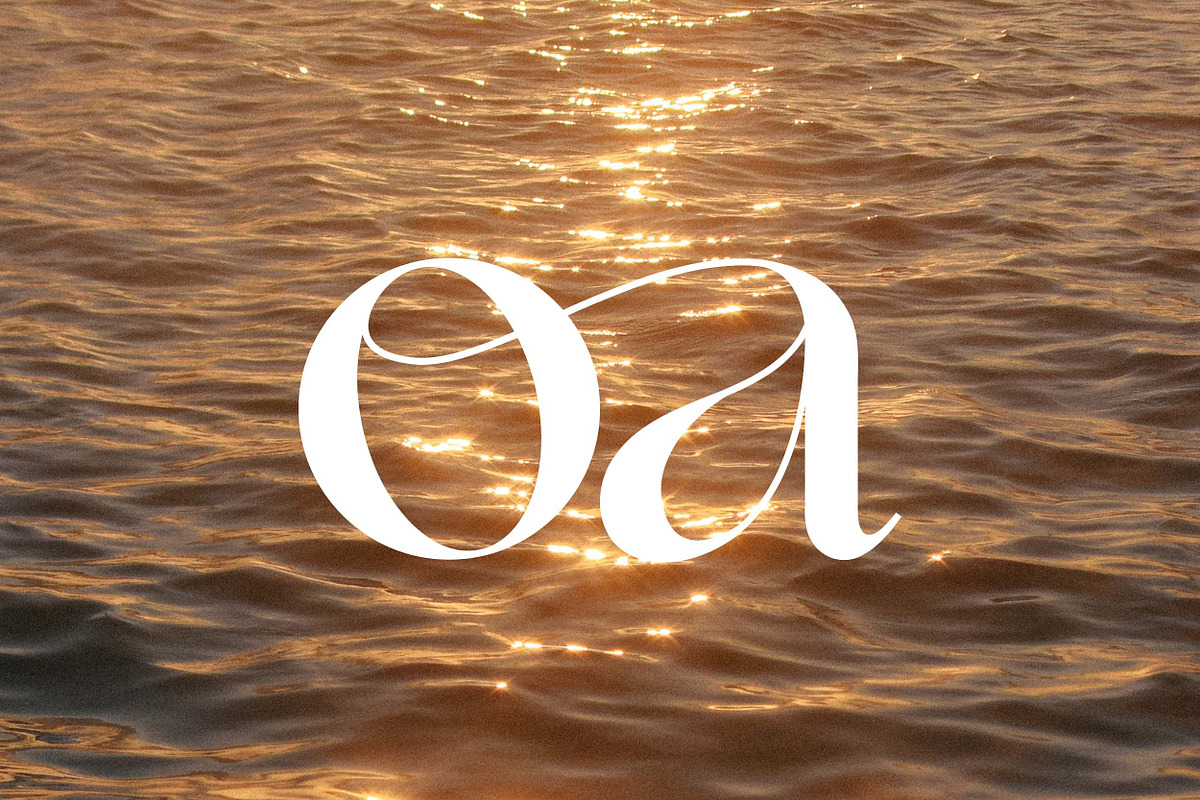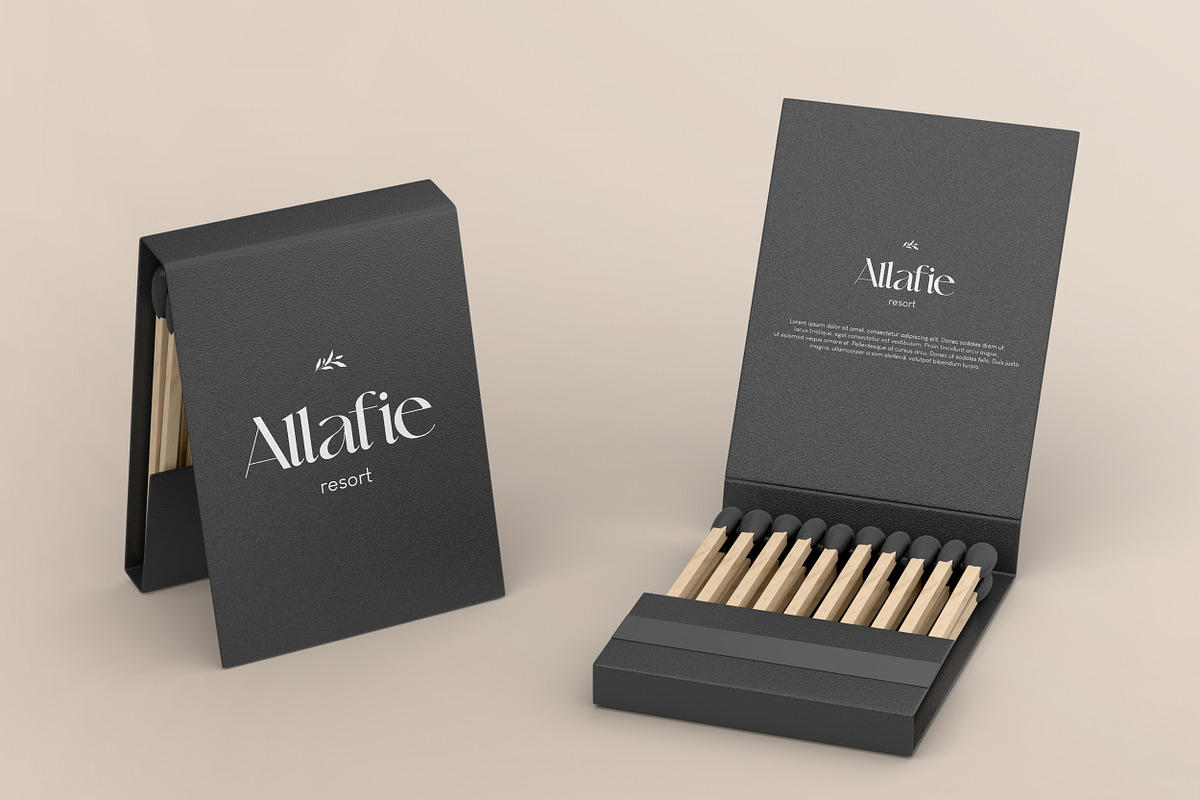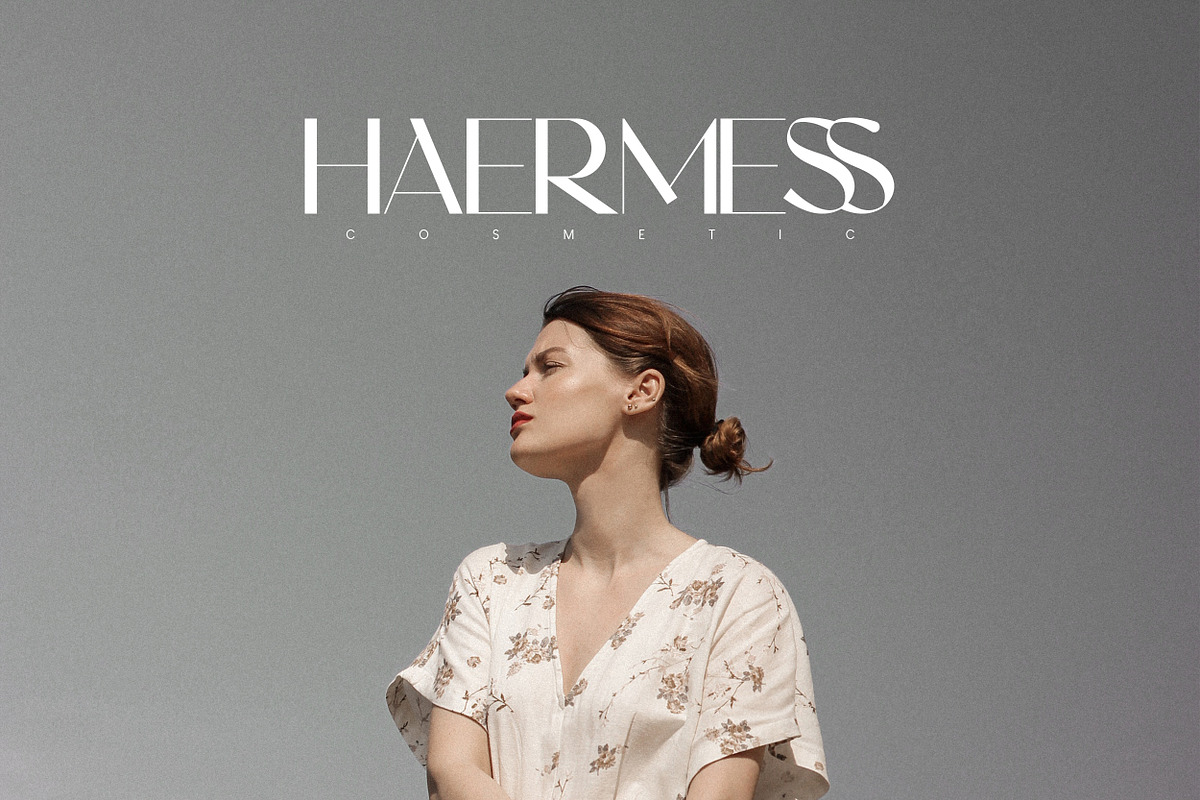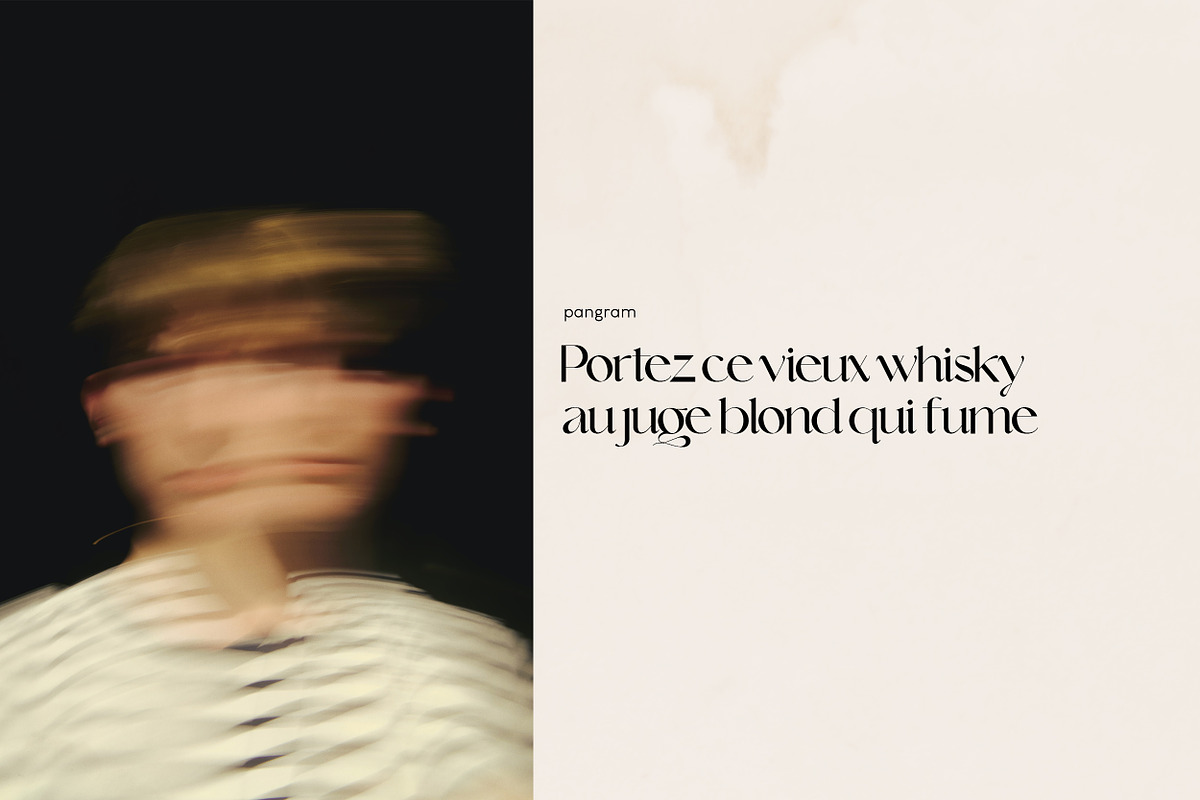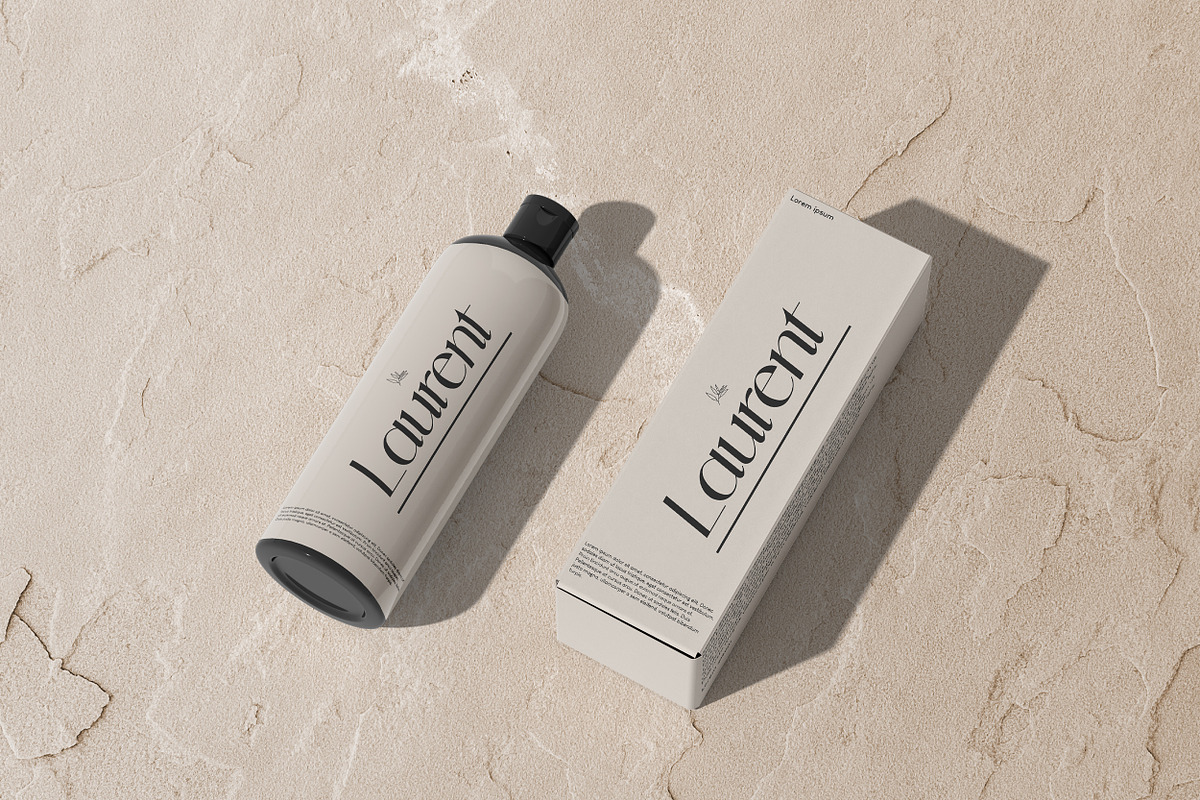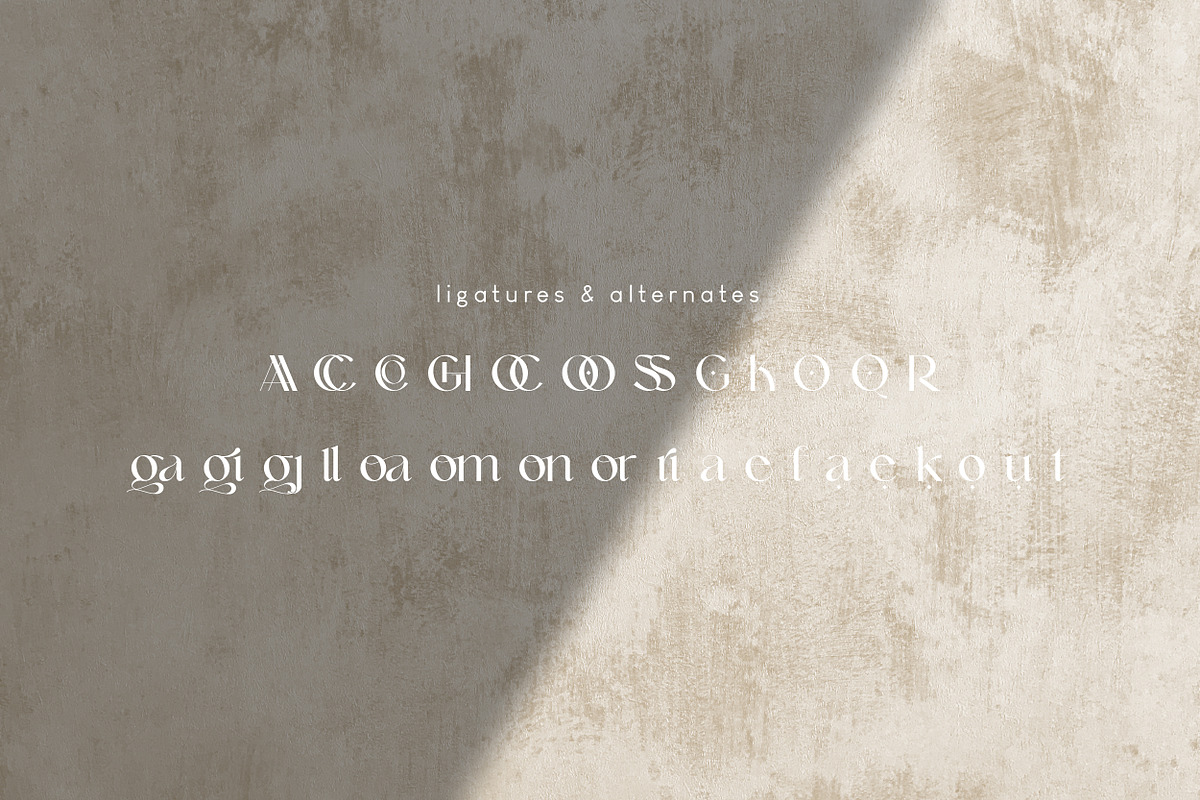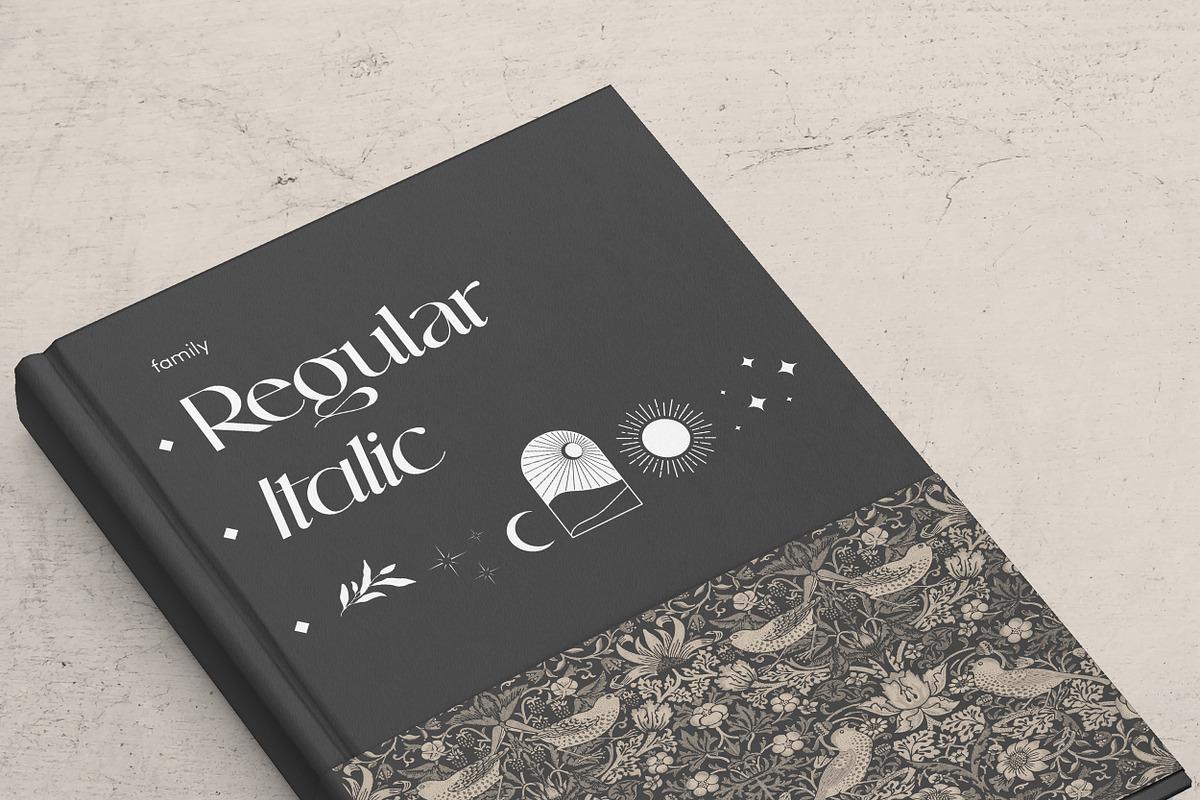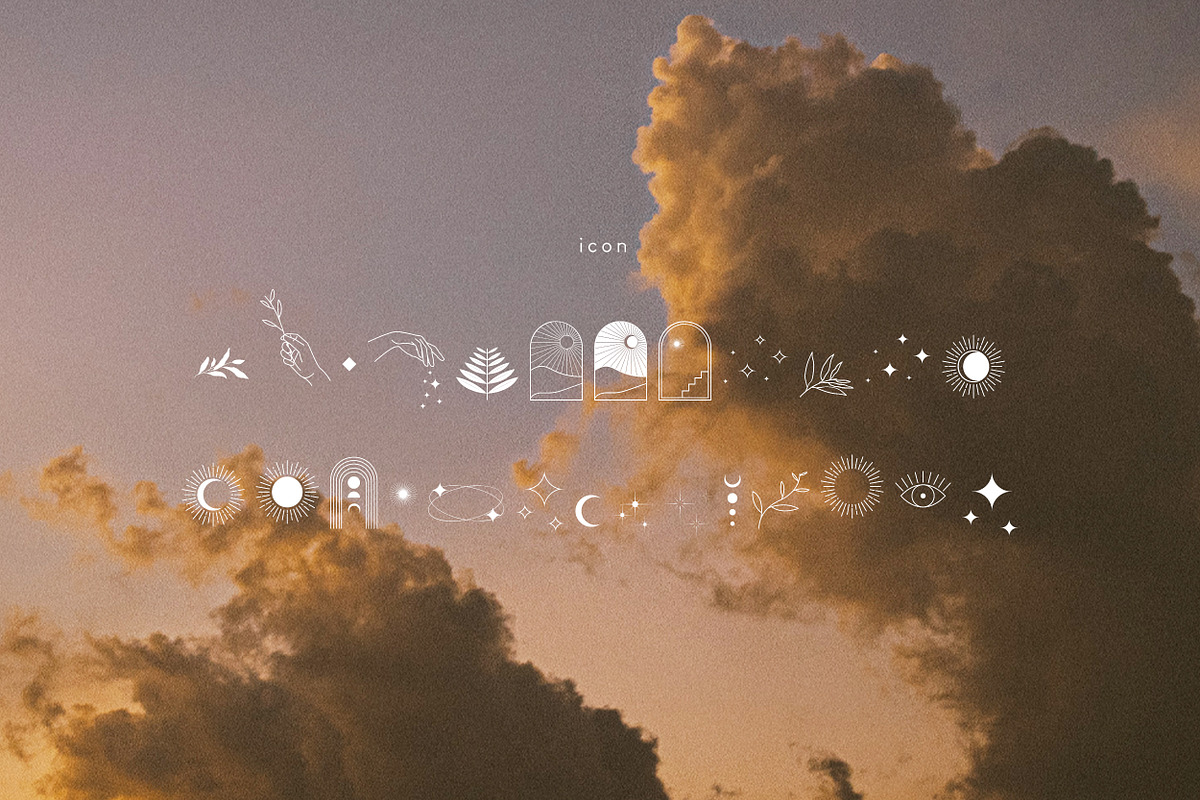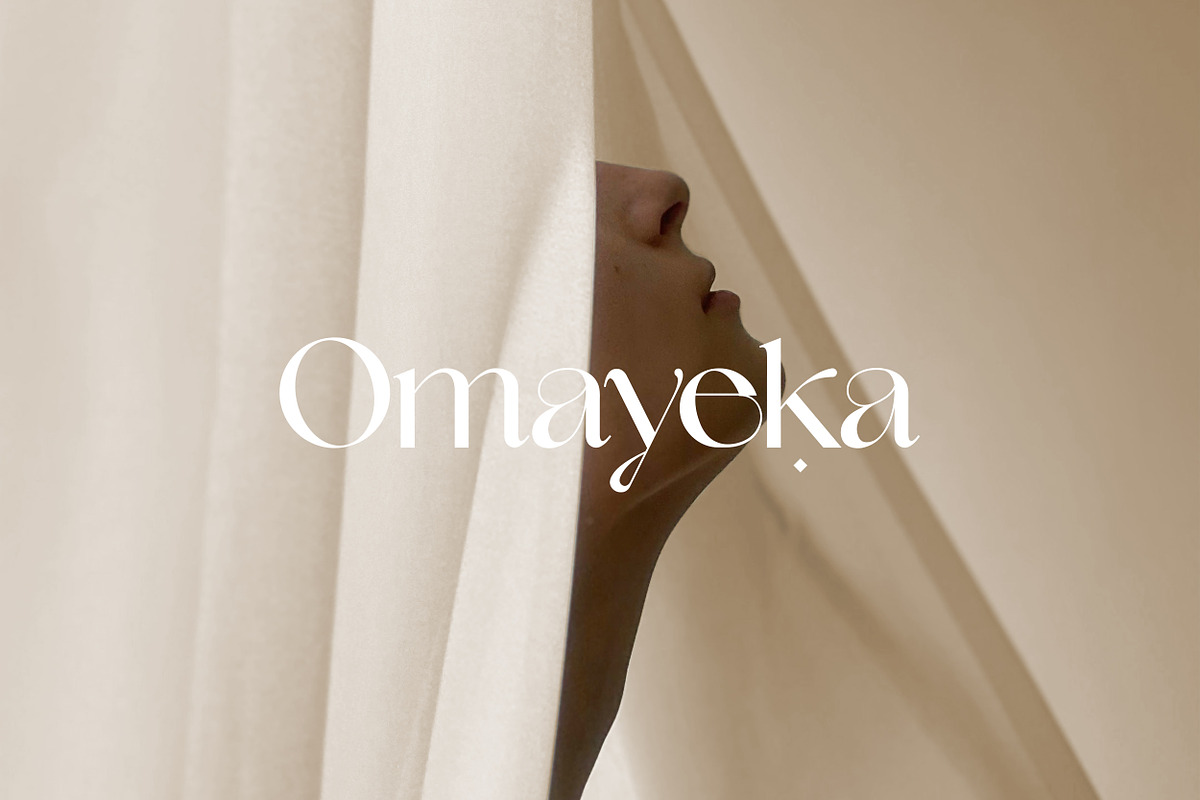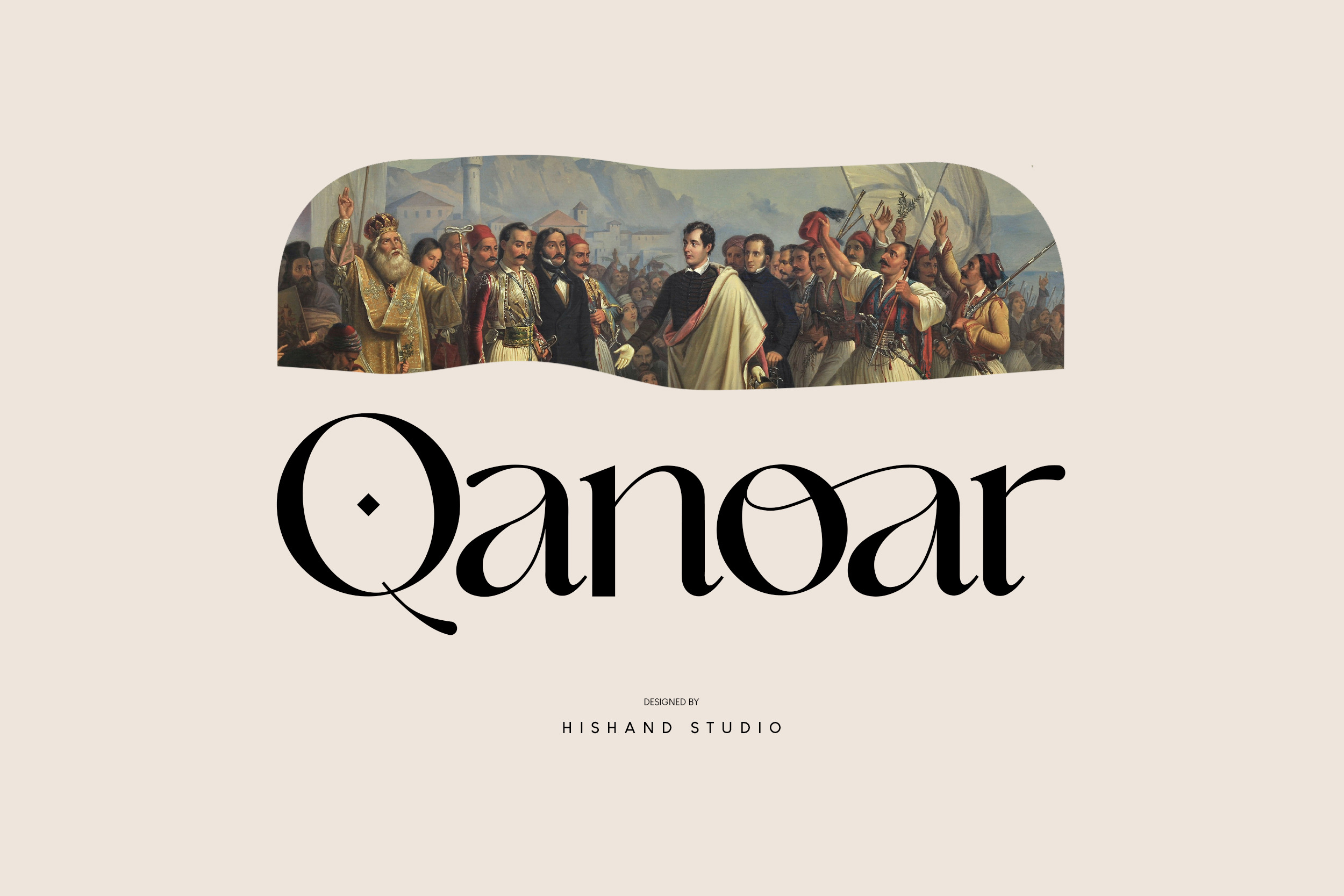
Classy look font of Qanoar. a modern serif font family that drawn inspiration from elegant, modern, but classic at the same time. just have a look at this beautiful handcrafted serif typeface. Use it for logo, design, branding, and many more.
Complete with
- alternates
- regular
- italic
- icon
- kerning
- multilingual support